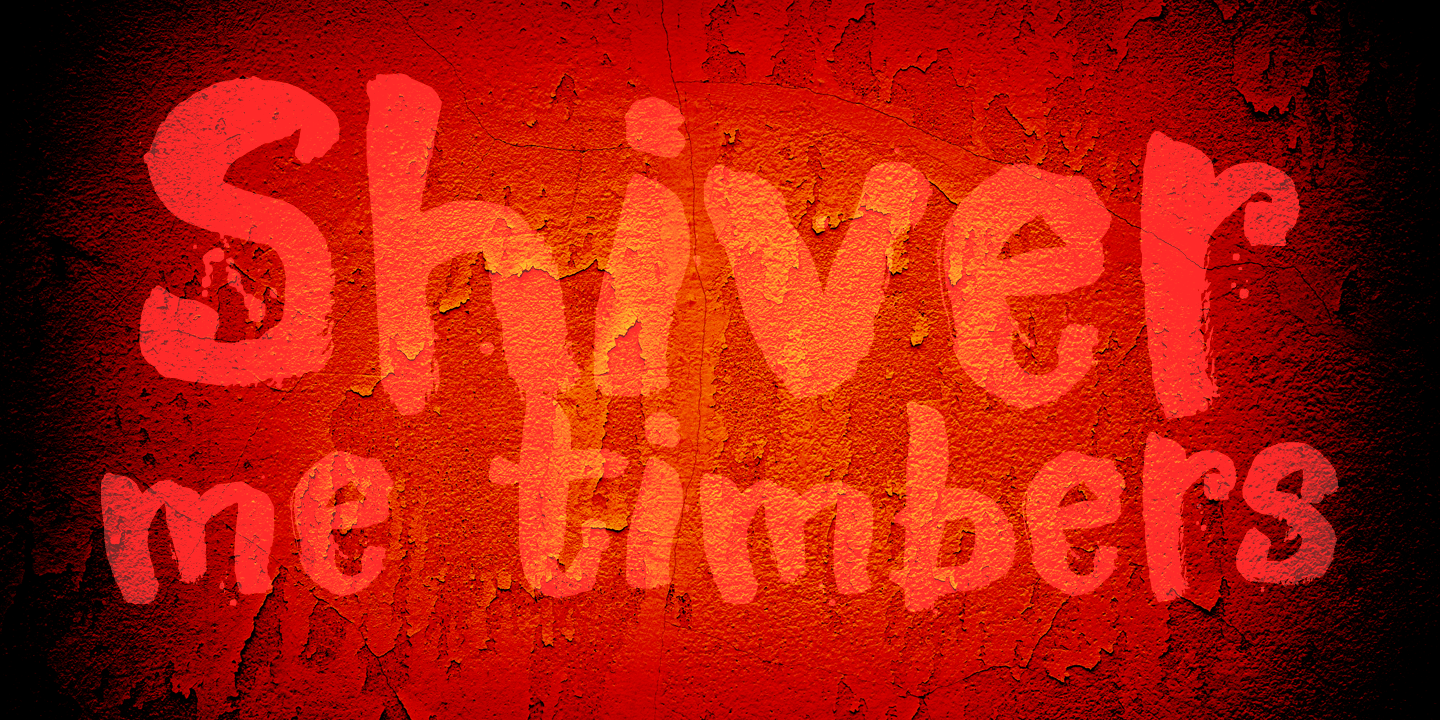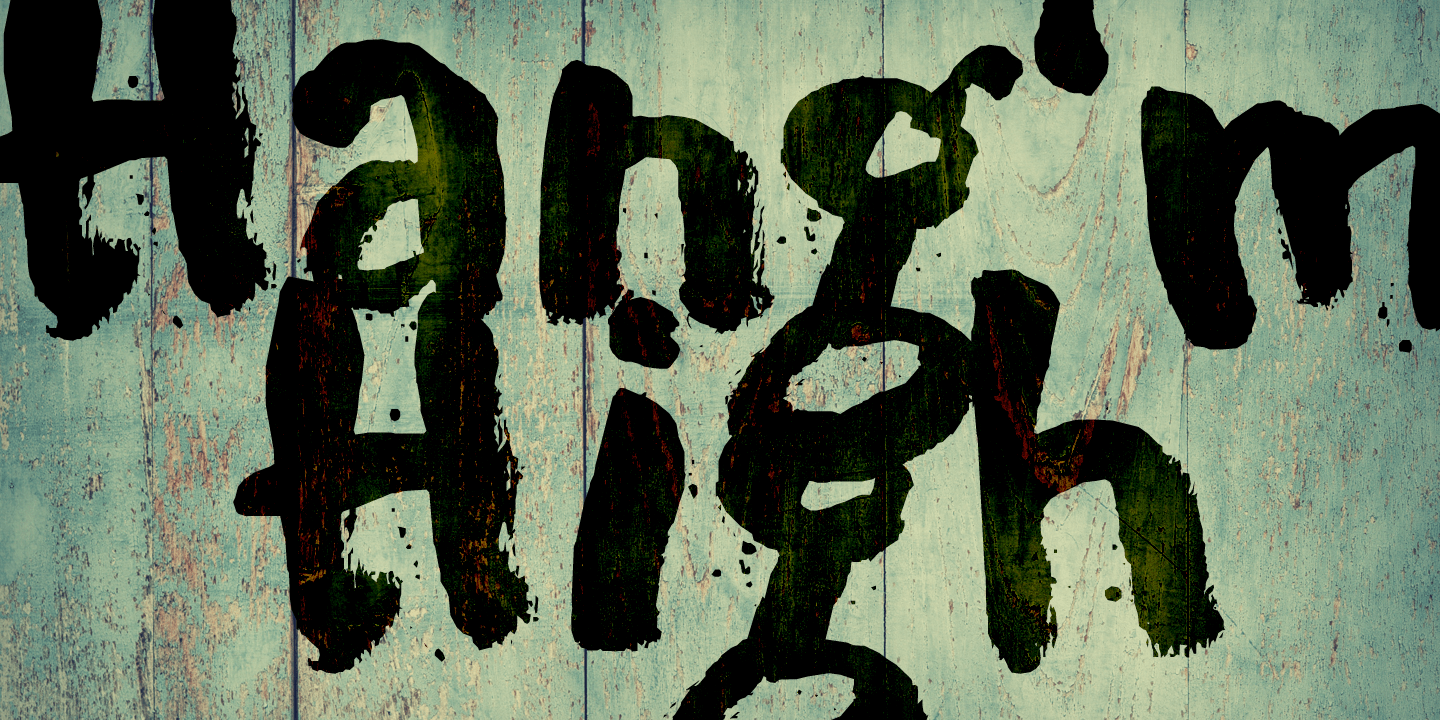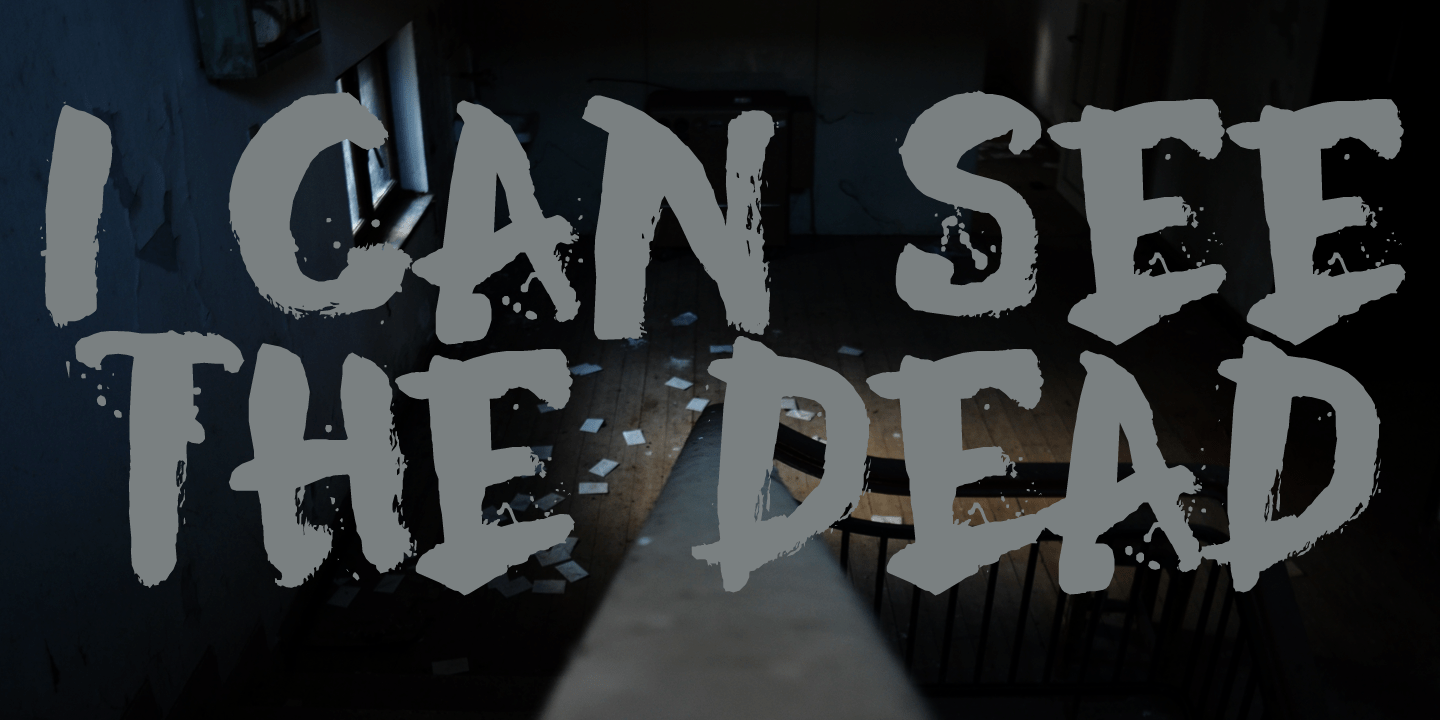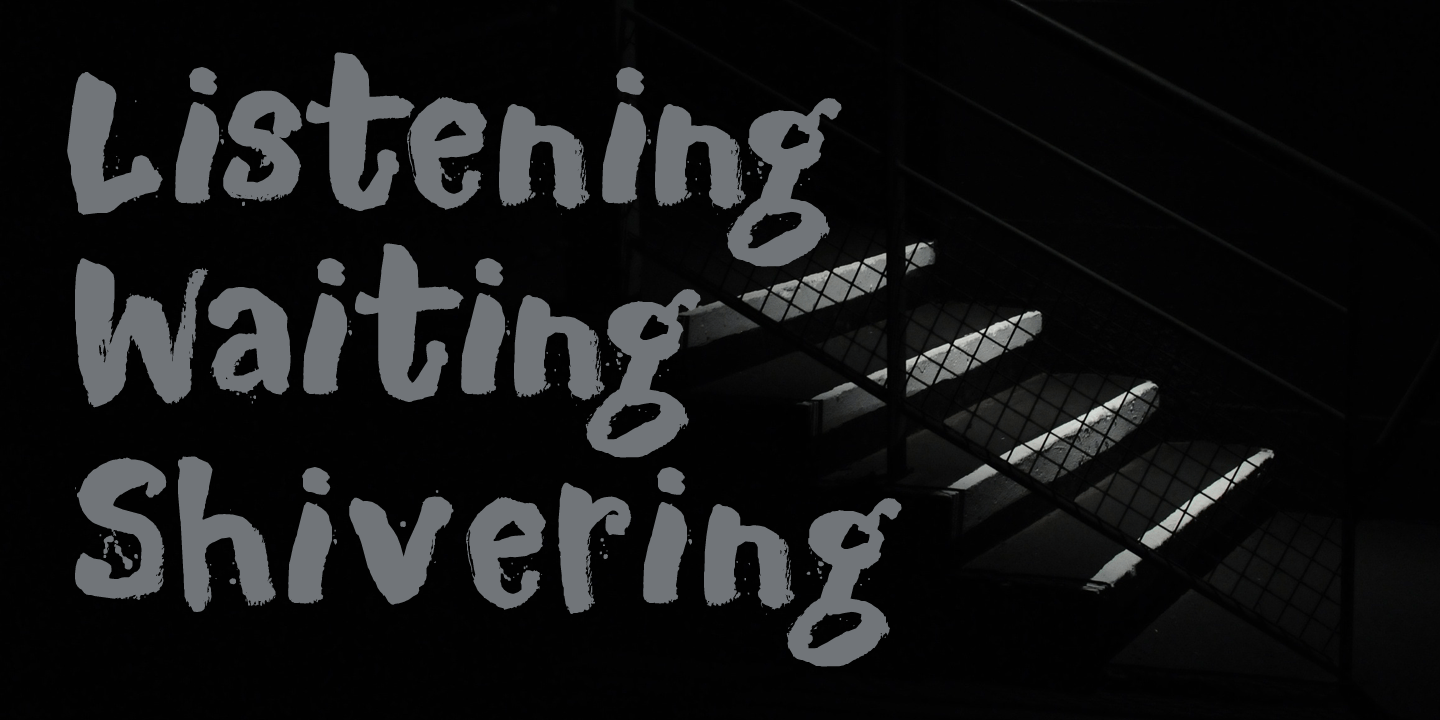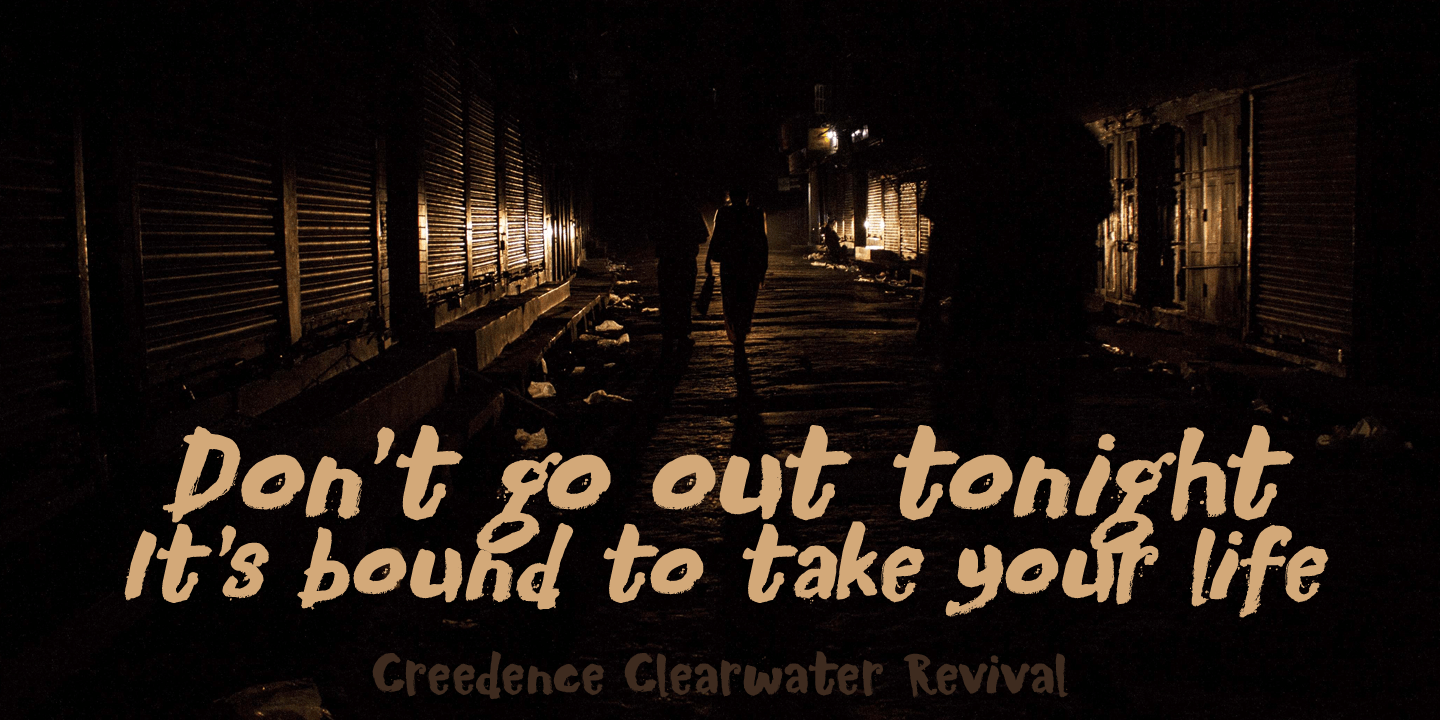
Motley Crew
About Motley Crew
Motley Crew is my last font for 2016. It is quite a lively, quirky and a little bit scary typeface, which will give your designs a little more ?joie de vivre?. It was made with a soft brush and Chinese ink. The splatter was added after I had painted the…